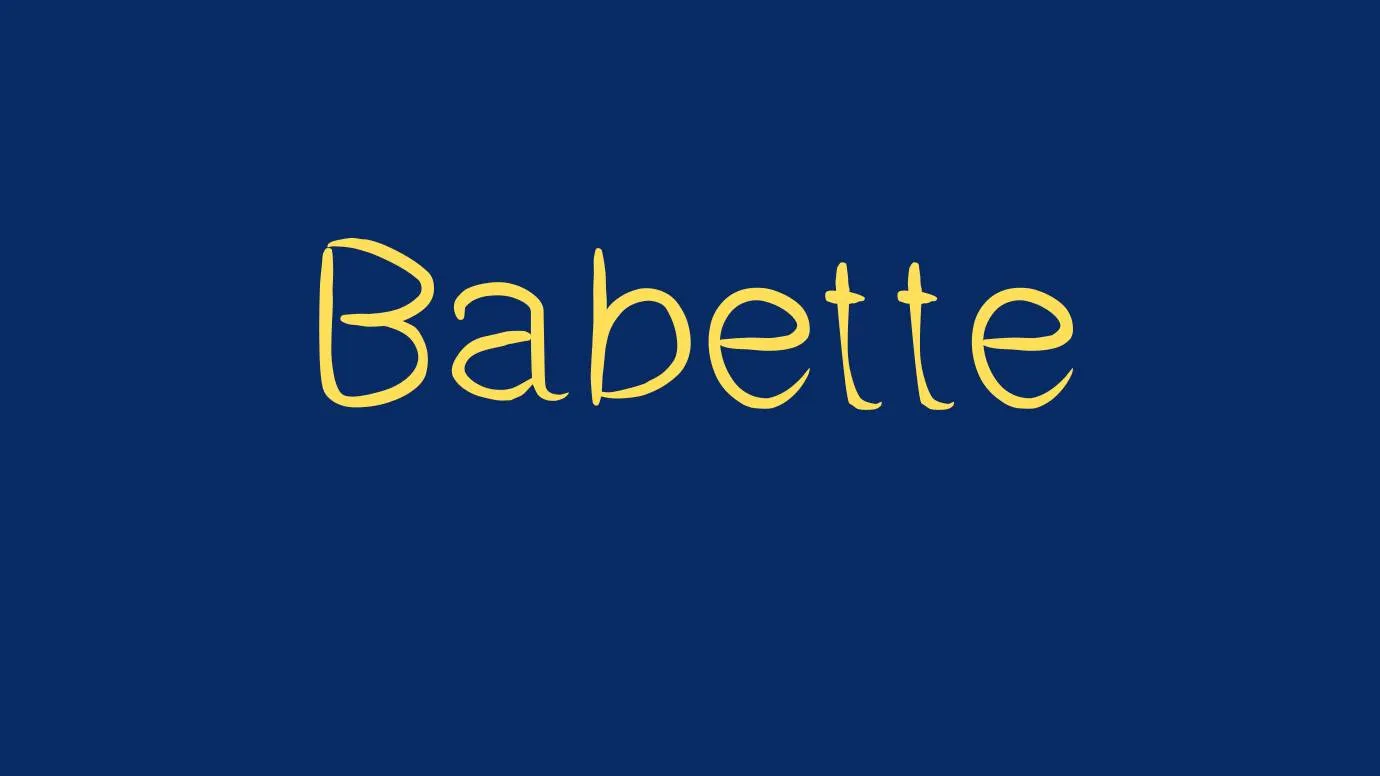
Babette Font Family is a wonderful typeface belongs to the script typeface family that comes in one regular weight. Initially was released for both regular and display versions and it is now available in TrueType and OpenType features.
NameBabette Font
DesignerJocelyne Clemencon
StyleScript